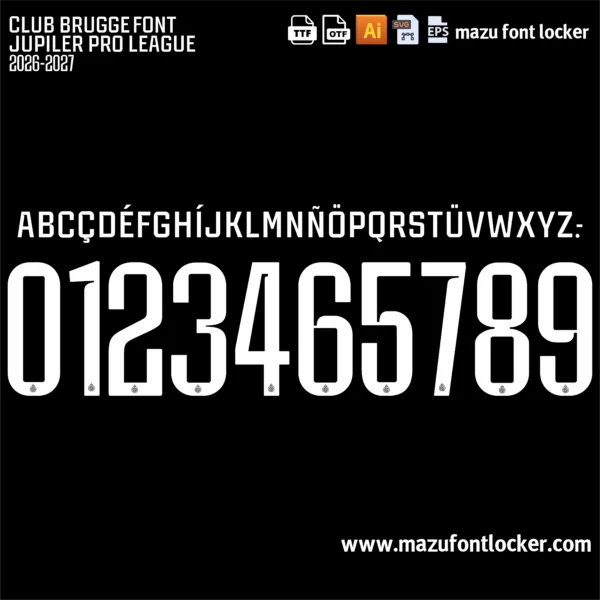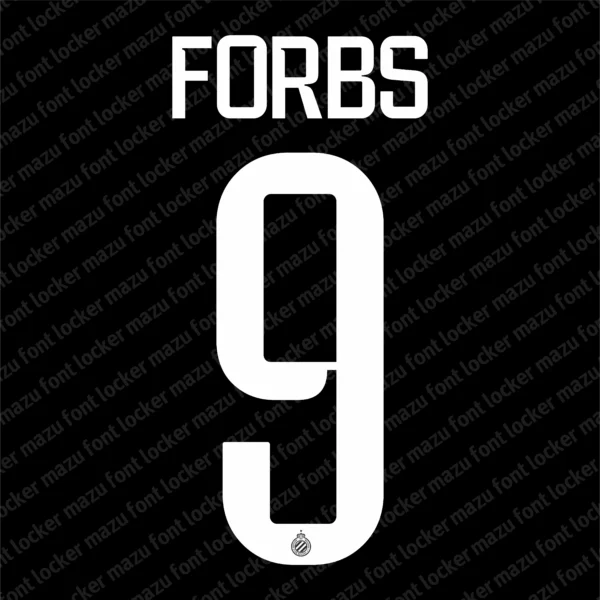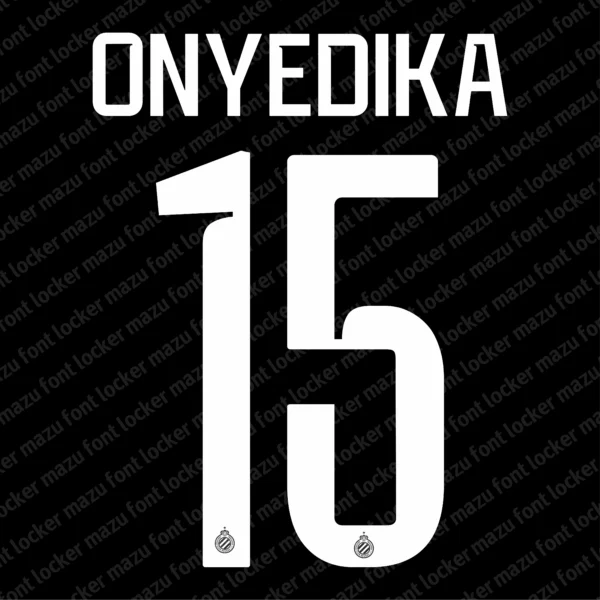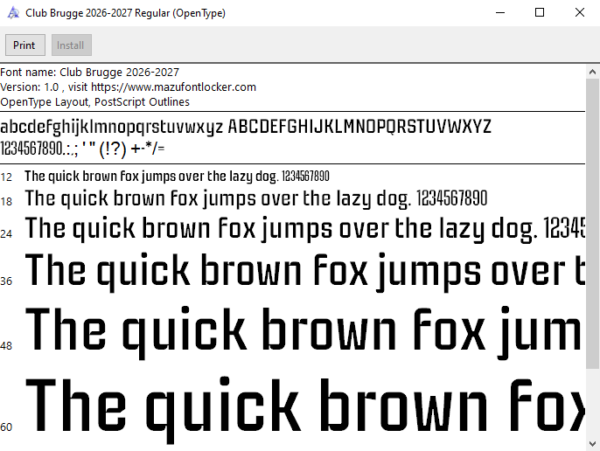
Club Brugge 2026-2027 Font Vector – Epic Blauw-Zwart Masterpiece
Club Brugge 2026-2027 Font Vector – Authentic Blauw-Zwart Typeface
The Club Brugge 2026-2027 Font Vector is a premium typeface that accurately recreates the official match lettering worn by Club Brugge KV during the 2026-2027 season. This high-quality vector font kit captures the bold, modern, and distinctive typography that represents the club’s continued dominance in Belgian football.
Designed for professional designers and passionate Club Brugge fans, the Club Brugge 2026-2027 Font Vector delivers perfect authenticity for creating realistic jersey mockups, fan merchandise, matchday posters, social media graphics, and much more. It blends beautifully with the club’s iconic blue and black kits.
Why Choose Club Brugge 2026-2027 Font Vector
This font stands out because of its sharp vector details and strong identity. Every letter and number is crafted to match the exact style used on the players’ shirts during the 2026-2027 season. Whether you are making realistic kit templates or contemporary football content, the Club Brugge 2026-2027 Font Vector gives your designs that authentic Blauw-Zwart look.
The letterforms in the Club Brugge 2026-2027 Font Vector are tall, bold, and highly readable. The strokes have a strong yet refined weight with clean edges that look powerful on the back of jerseys while maintaining excellent clarity and Belgian elegance.
- Full uppercase A–Z and numbers 0–9 in authentic Club Brugge 2026-2027 style
- Special Club Brugge KV crest glyph for accurate shirt number detailing
- Multilingual Latin character support including diacritics
- Includes the exact crest glyph placement used under player numbers
Club Brugge in the 2026-2027 Era
The Club Brugge 2026-2027 Font Vector is an independently designed typeface package. It is carefully crafted to replicate the official shirt lettering style of the 2026-2027 season. This font kit is perfect for creative projects, fan edits, nostalgic and current jersey designs, and custom football graphics.